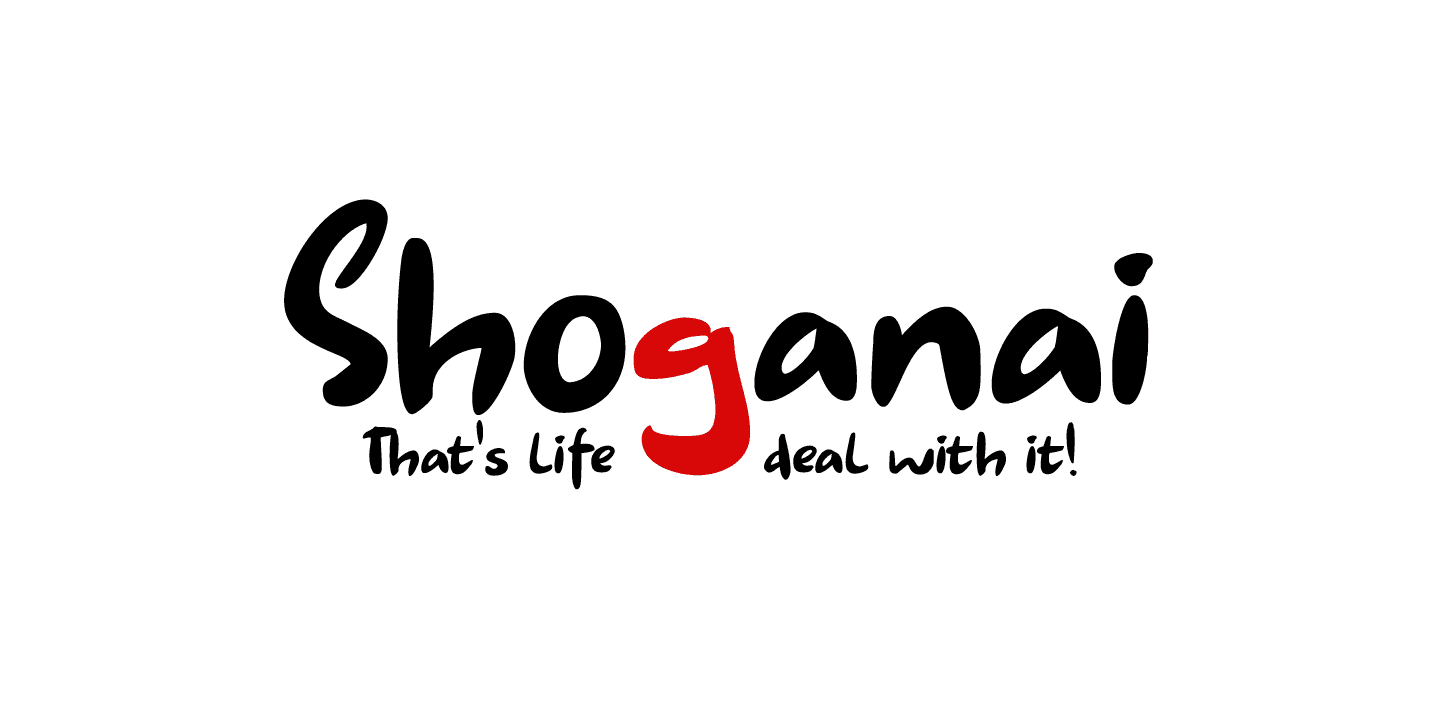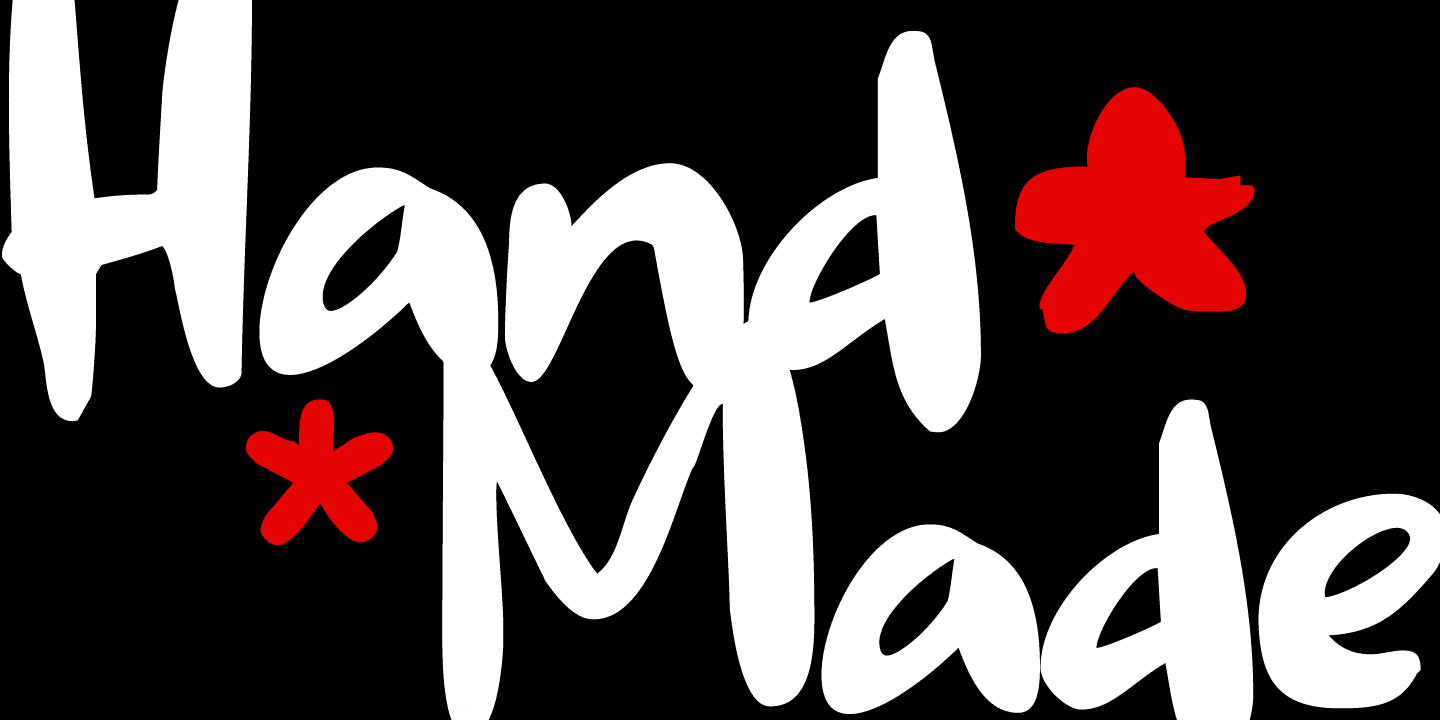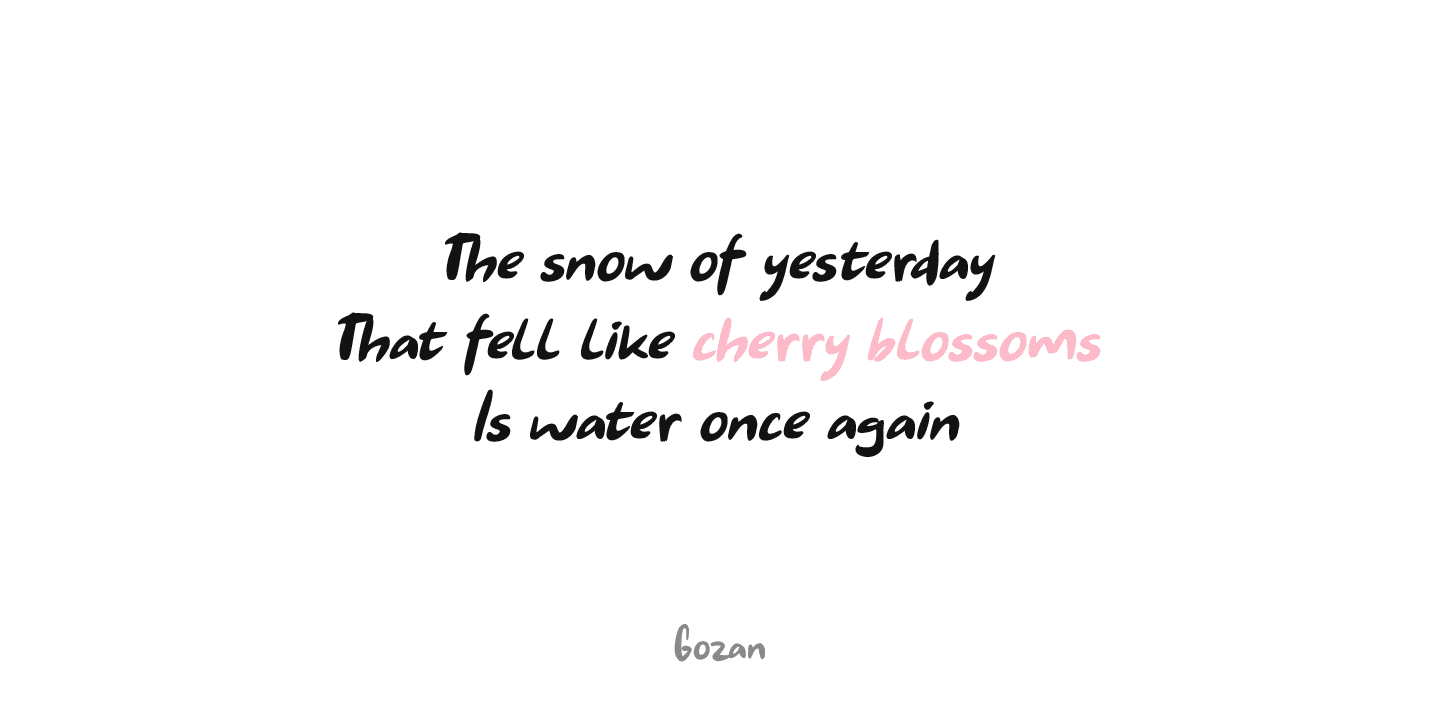
Shoganai is a set of Brush fonts: a thinner, script font and a heavy display font. Use it for book covers, product packaging and more. If you can’t use it, then, well, Shoganai.